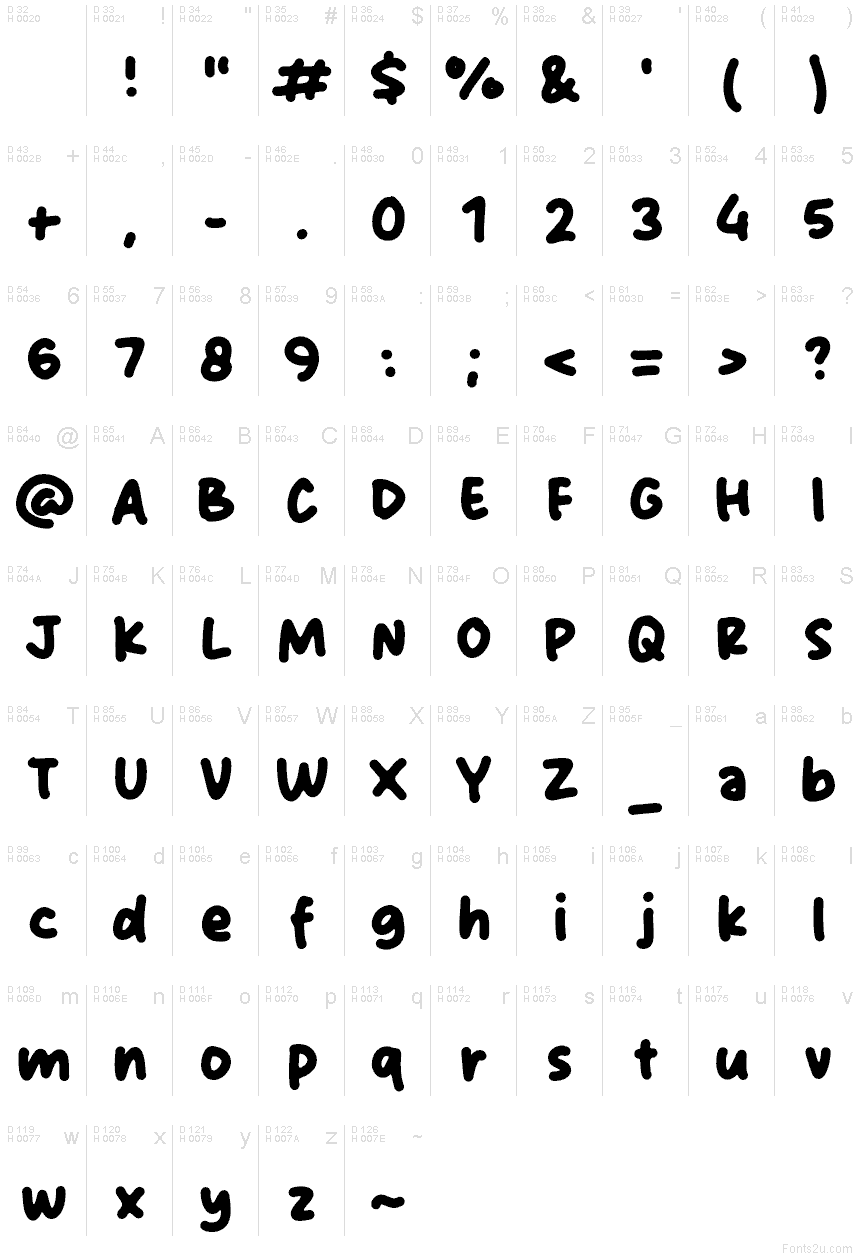
Holiday Mama
Holiday Mama font by MJType is a bold handwritten typeface with a modern, casual look. It has a friendly feel, rounded edges, and contemporary touches that make for an ideal aesthetic in informal projects and branding.
This beautiful free handwritten font works ideally in casual print or digital branding, children’s products advertising, posters, invitations to non-formal events, social media posts, websites, packaging designs.